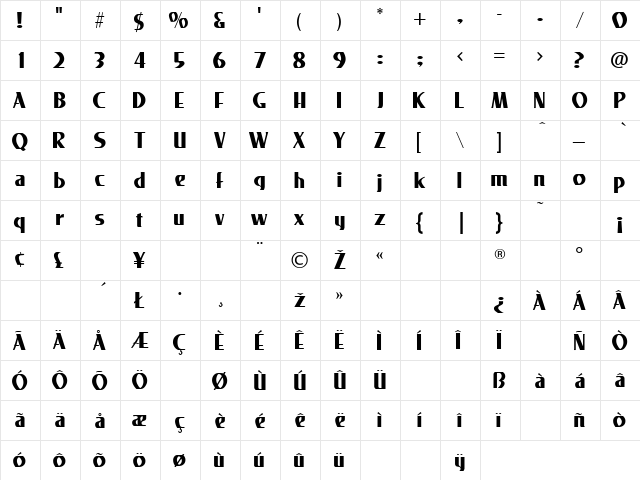
Lester Bold Regular
Design Context for Lester Bold Typeface
Lester Bold takes a measured approach to typography — its balanced proportions and neutral character make it a reliable workhorse for both digital and print work. Its bold stroke weight gives it real presence on the page.